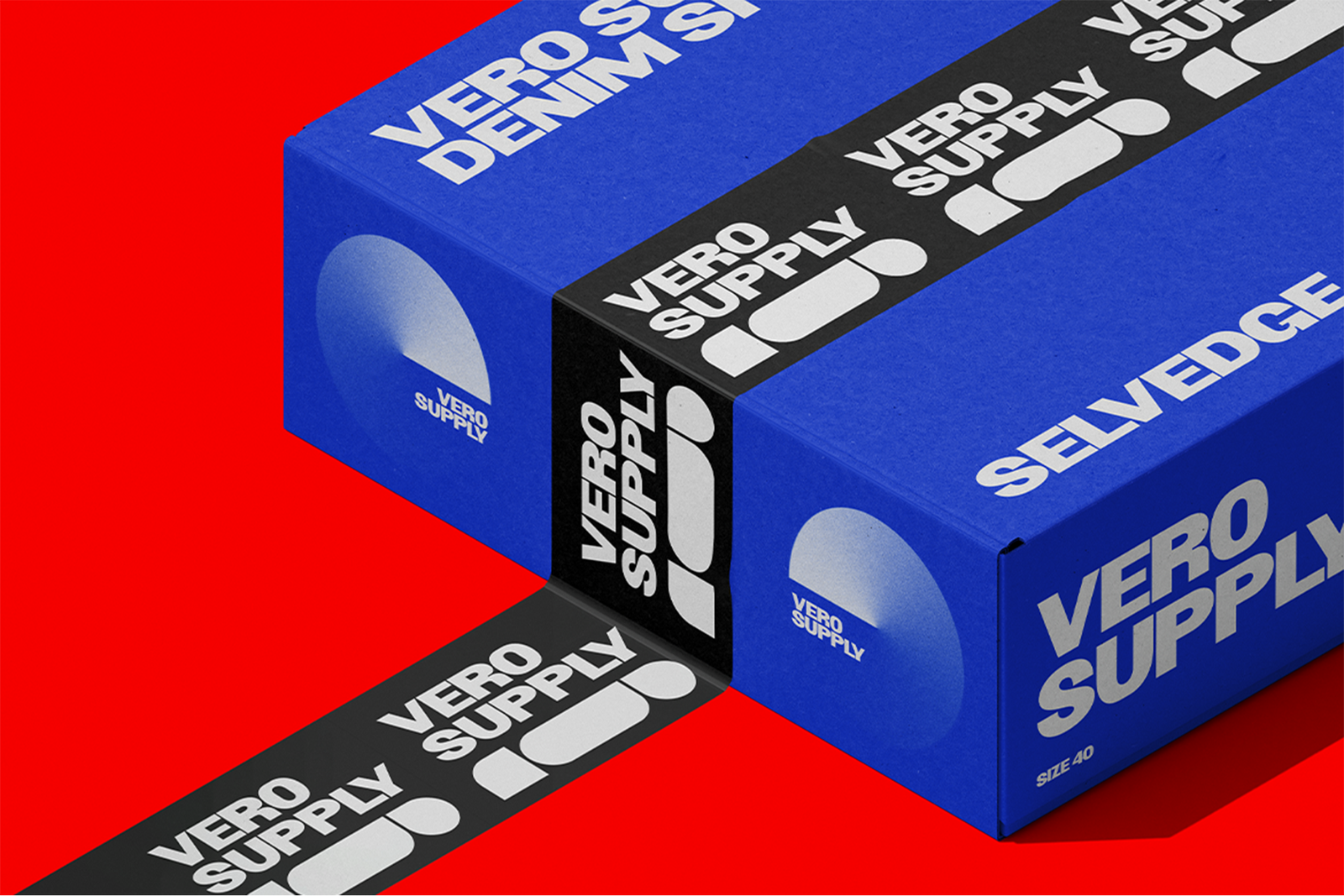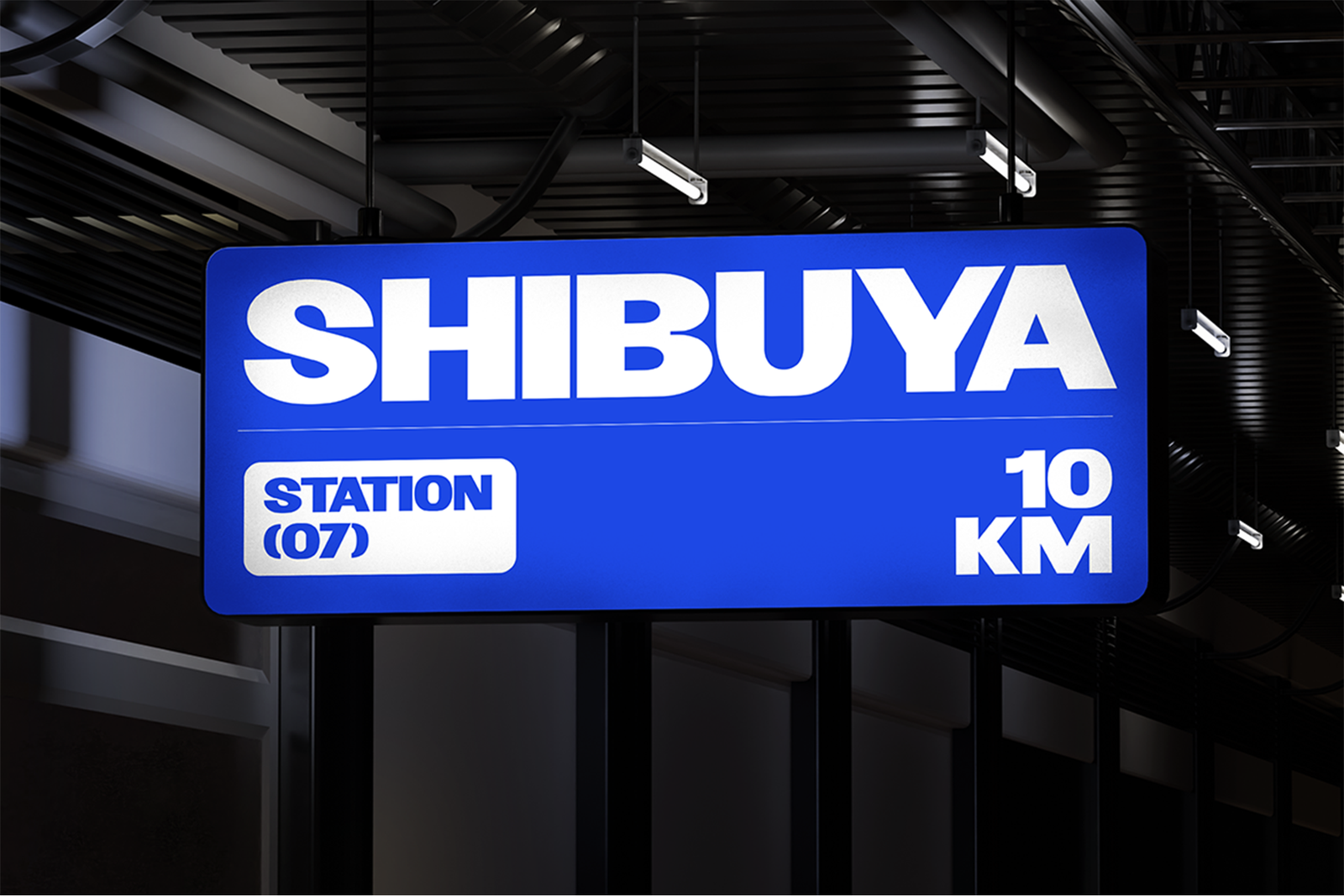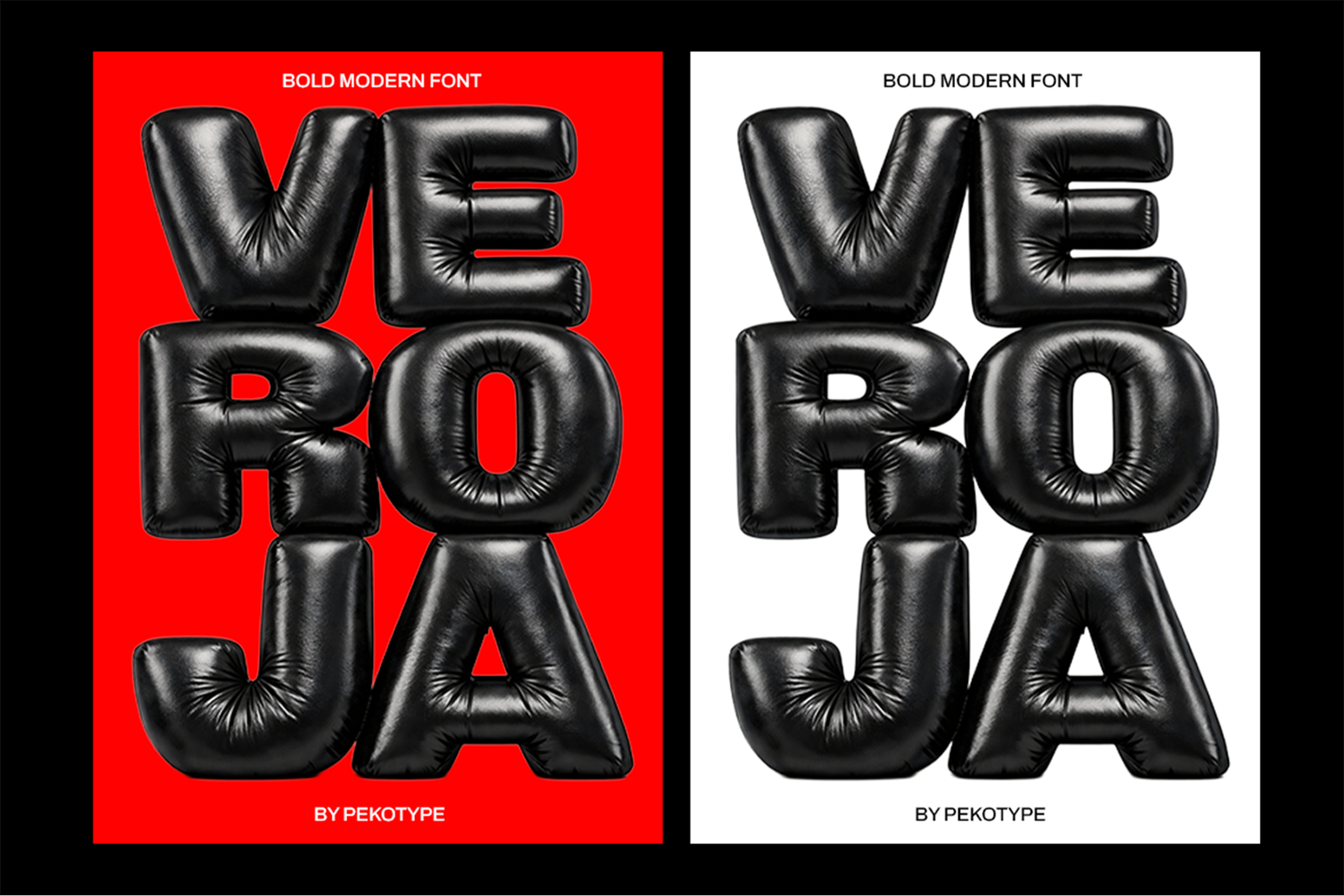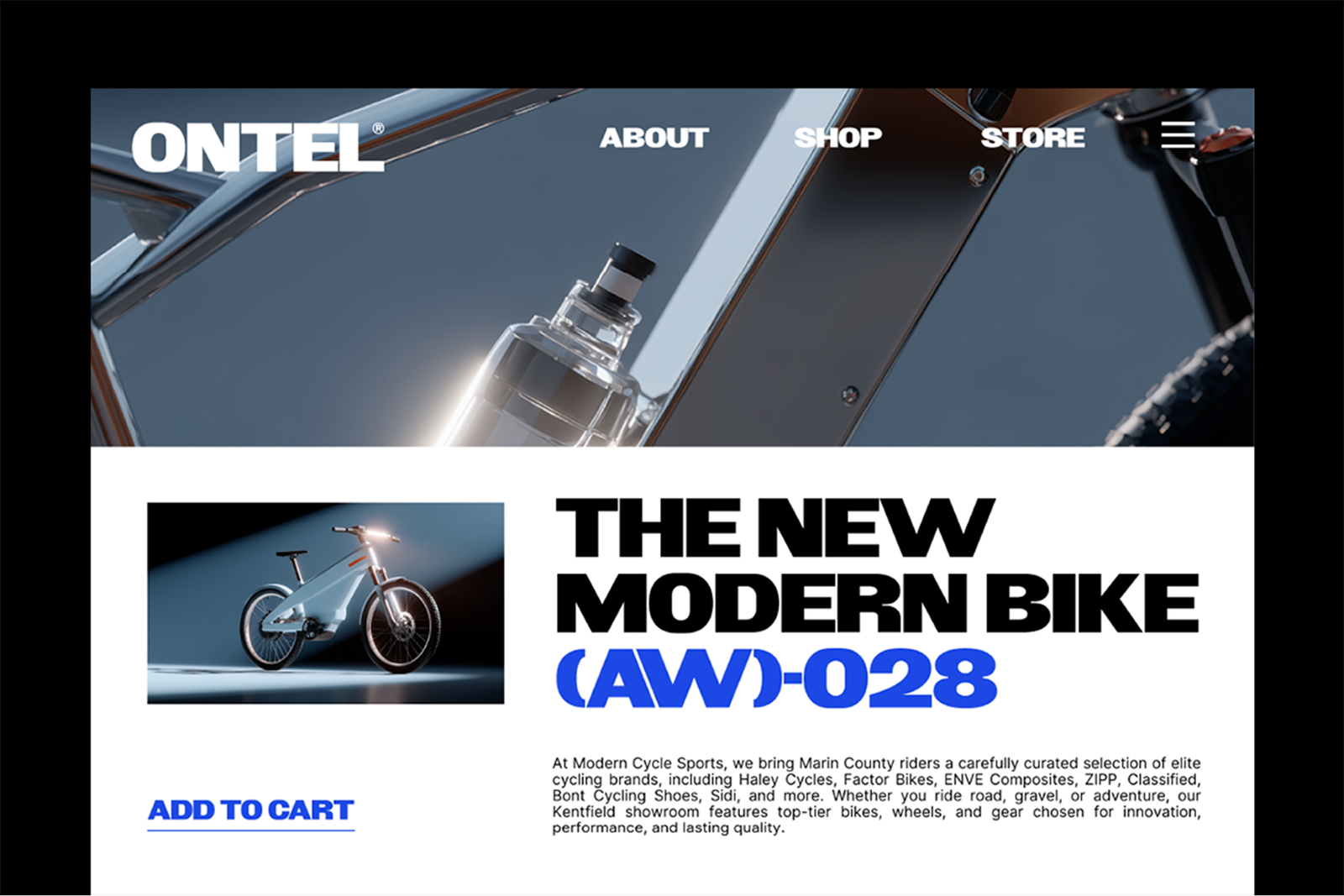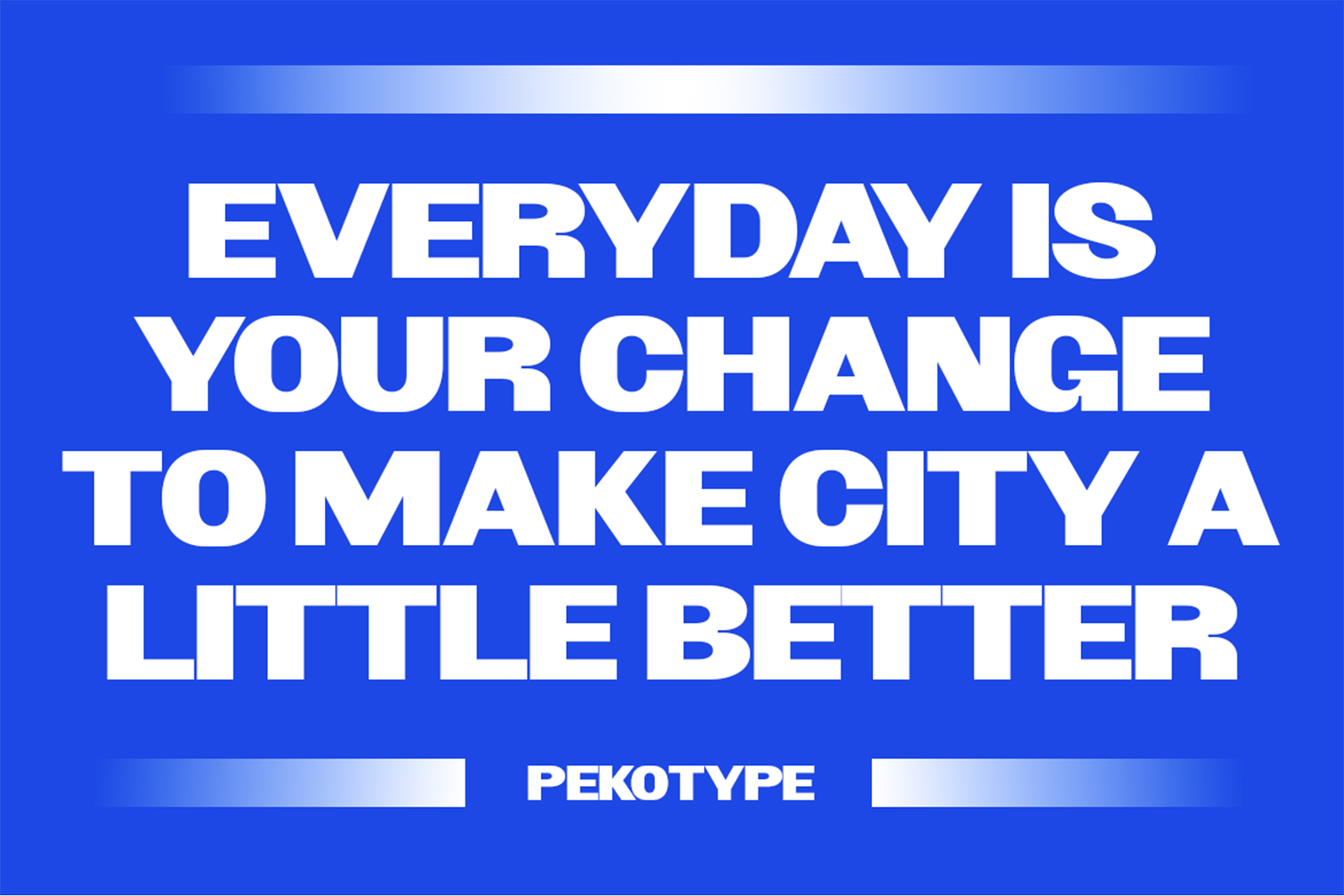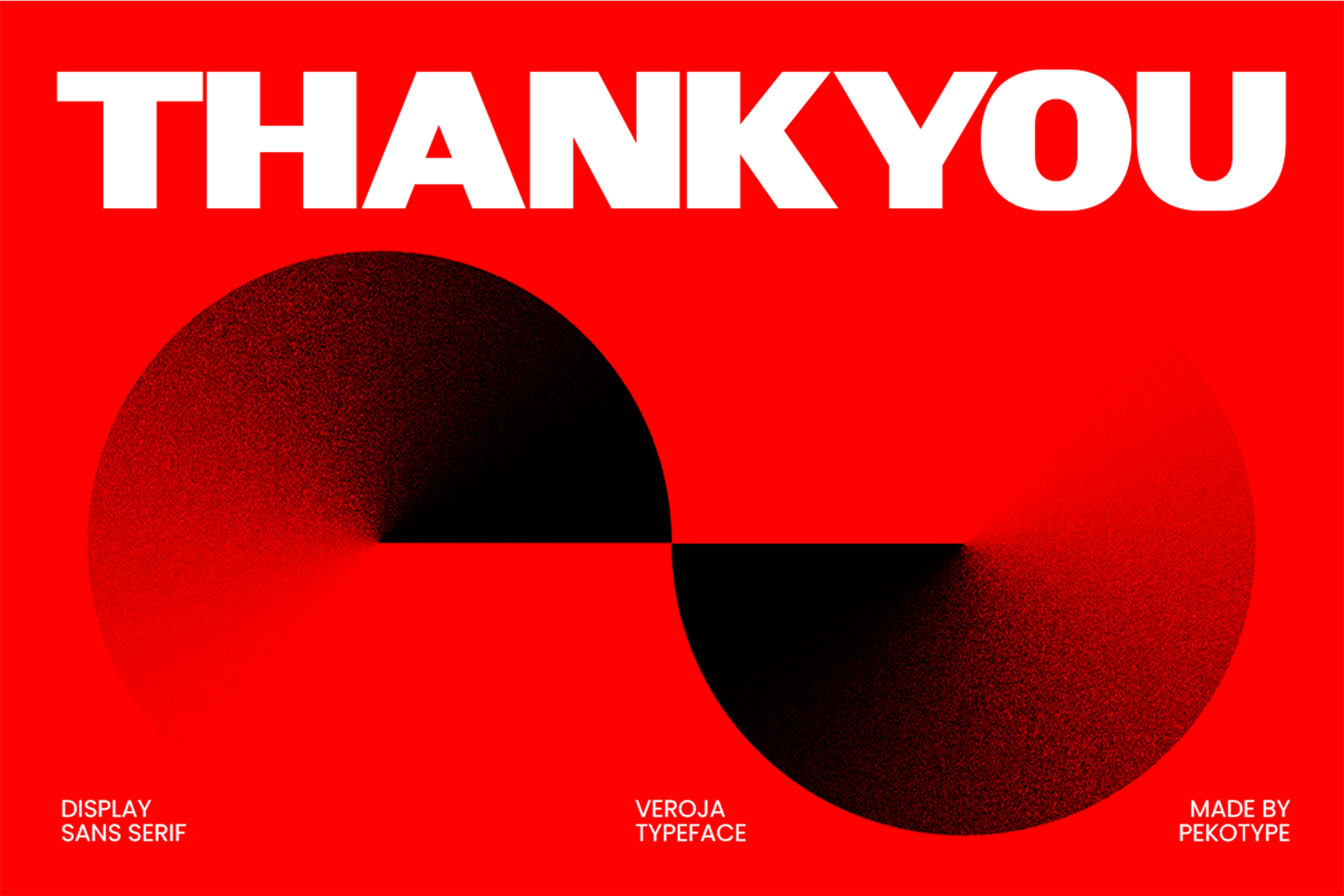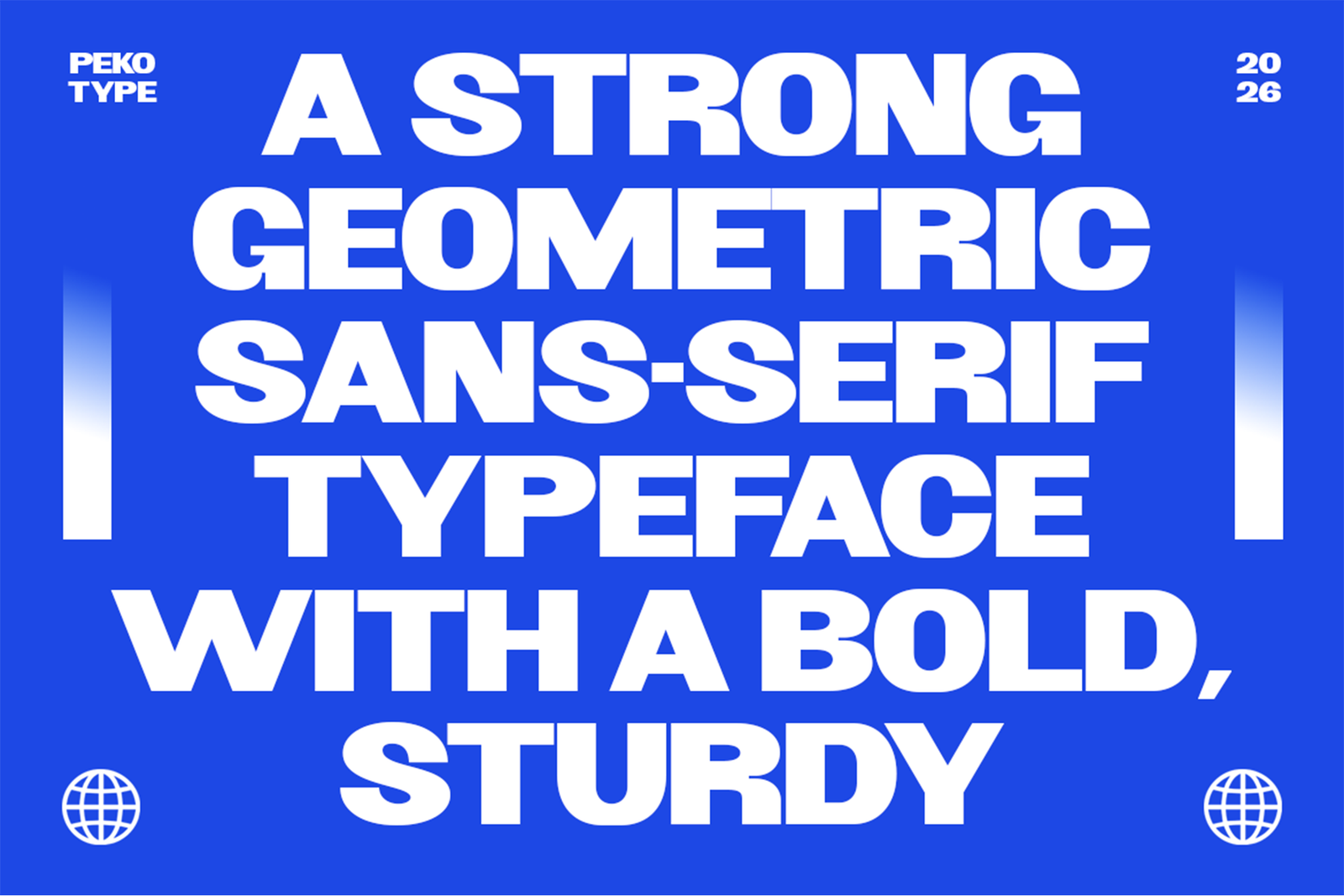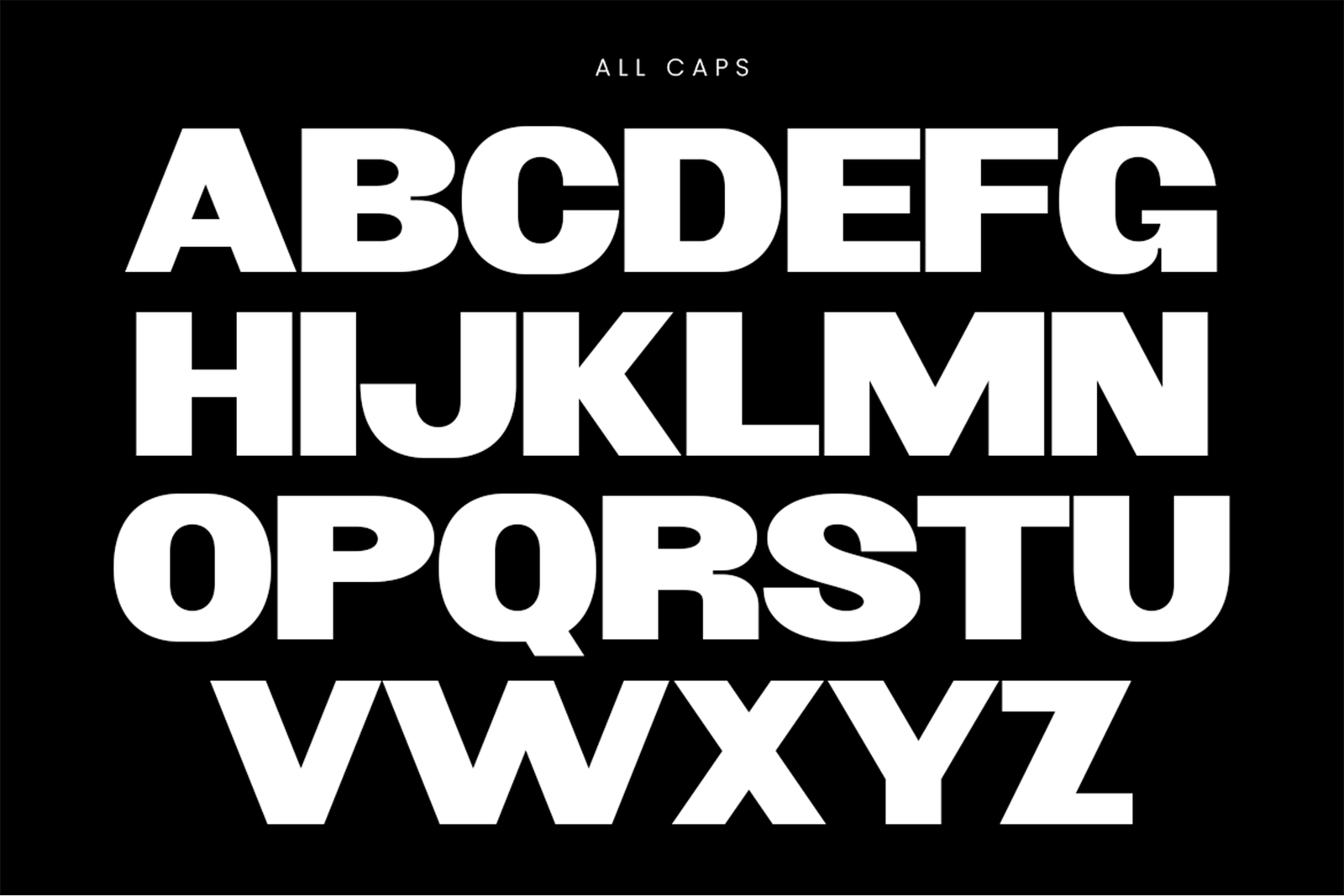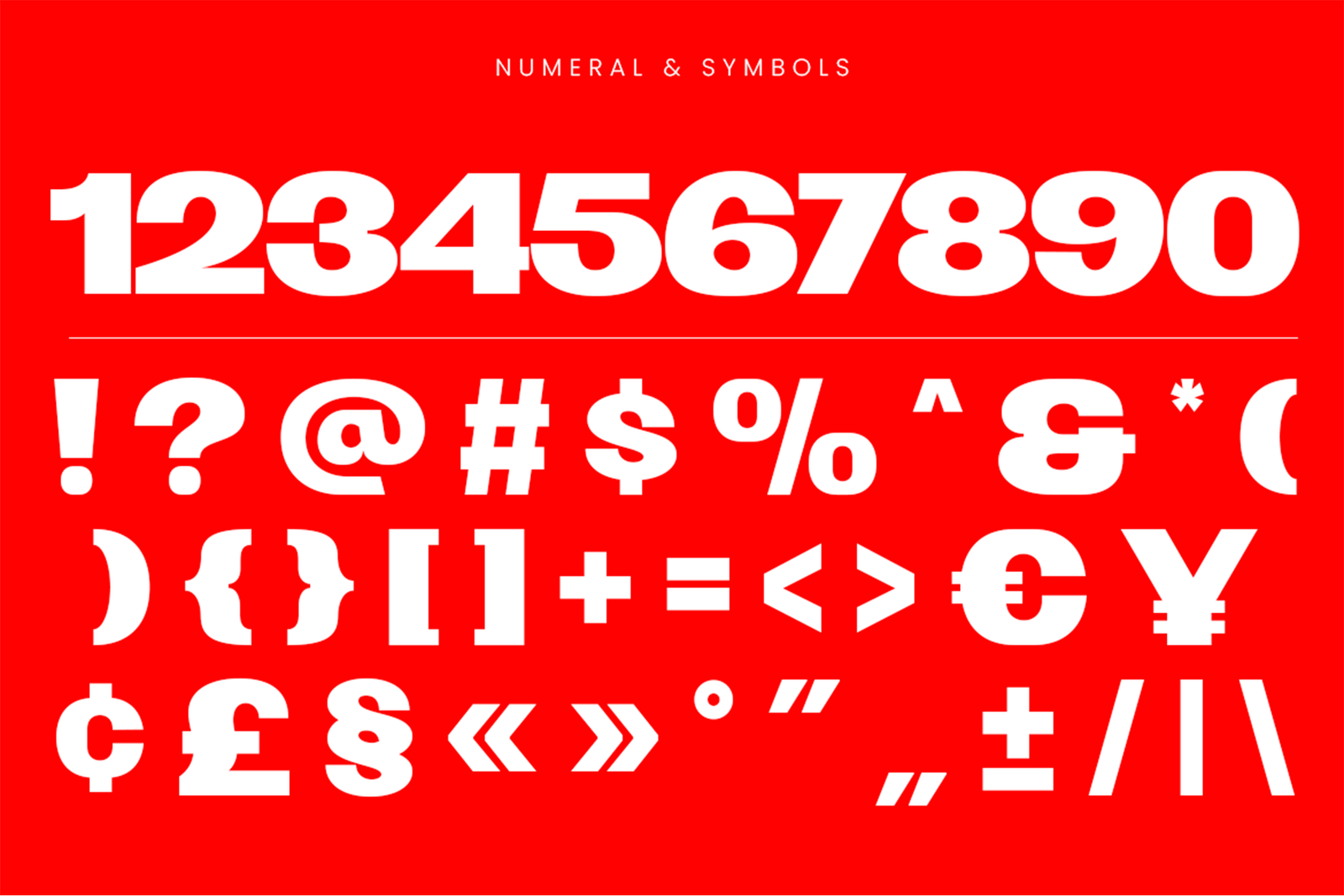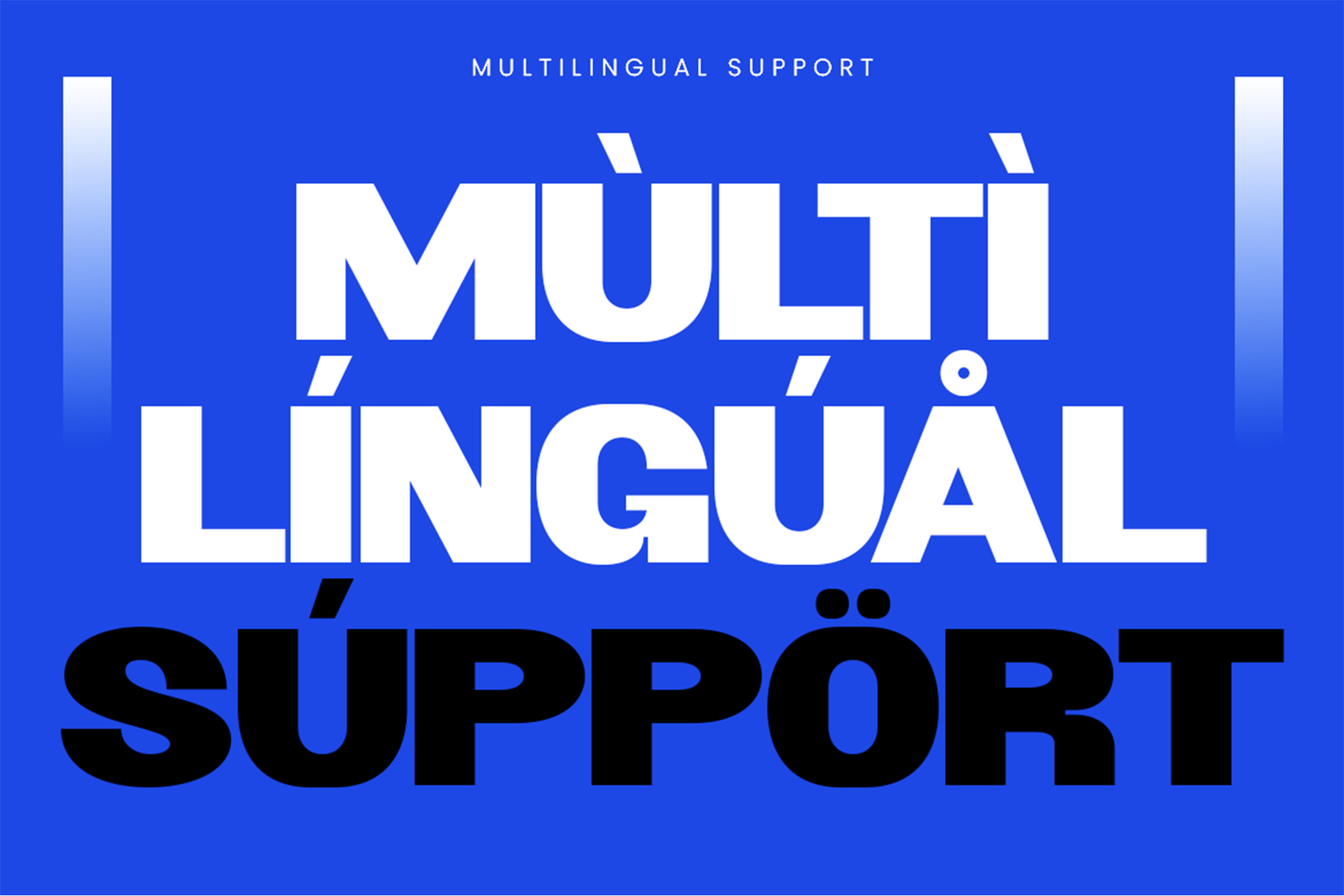
VEROJA Font is a bold geometric sans serif typeface with strong letterforms and a modern style, perfect for branding, logos, posters, and creative projects.
VEROJA Font – Bold Modern Geometric Typeface
VEROJA Font is a bold geometric sans serif font designed to bring a strong, modern, and confident look to your designs. It features clean geometric shapes, thick letterforms, and a sturdy structure that creates a powerful visual impact. With its bold appearance and excellent readability, VEROJA is the perfect choice for projects that need a contemporary, professional, and eye-catching style.
This font is highly versatile and works perfectly for modern branding, logo design, posters, headlines, packaging, and digital content. It is a great fit for technology brands, sports graphics, creative agencies, product packaging, and advertising designs. Whether you are creating a bold identity, website header, social media artwork, or promotional campaign, VEROJA helps your design look clean, confident, and memorable. With uppercase letters, numbers, symbols, and multilingual support, this font is ready for various creative projects. Choose VEROJA to give your work a powerful, stylish, and futuristic touch.
Features:
• All Caps
• Number, Symbol, & Punctuation
• Multilingual
VEROJA Font – Bold Modern Geometric Typeface